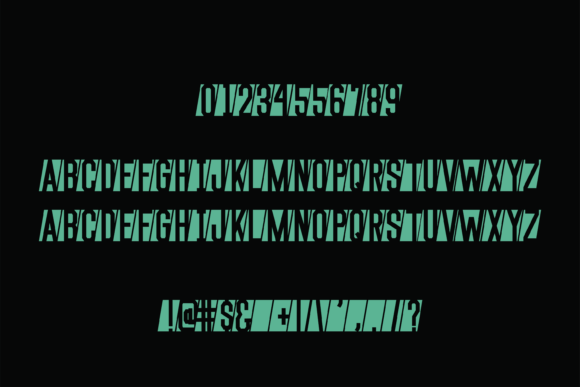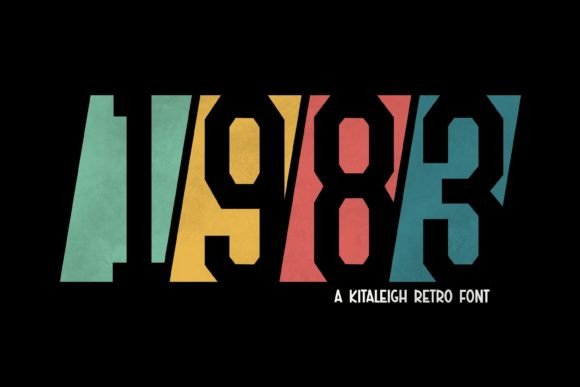
Step into a Time Machine: Uncovering the Magic of the 1983 Retro Font
I’ll never forget the time I was working on a project for a client who wanted a retro-themed poster. I had all the design elements ready, but something was missing – the perfect font. I scoured the internet, tried out countless fonts, but none seemed to capture the essence of the ’80s. That’s when I stumbled upon the 1983 Retro Font. It was love at first sight! 💕
This tilted boxed font brought back the charm of classic nostalgia, and I knew I had found the perfect fit for my project. If you’re a designer, crafter, or creative hobbyist looking to add a splash of retro vibes to your work, you’re in luck! The 1983 Retro Font is here to give your projects that vintage touch of yesteryear.
• ✨ Unique and distinctive design that instantly adds a retro touch to any project
• ✅ Easy to read, even in smaller sizes
• 💥 Perfect for headlines, titles, and emphasis text
• 🎉 Great for creating a cohesive look when paired with other retro-inspired design elements
While the 1983 Retro Font is amazing, there are a few things to keep in mind:
• 🤔 May not be suitable for body text or long paragraphs, as it’s primarily designed for headlines and titles
• ⚠️ Some characters, like the lowercase letters, can be a bit tricky to read if you’re not used to the font
The Designer Inspiration Behind the 1983 Retro Font
The 1983 Retro Font was inspired by the iconic designs of the 1980s. The font’s creator, a talented designer with a passion for retro aesthetics, wanted to capture the essence of the decade’s bold, playful style. The result is a font that’s both nostalgic and timeless – perfect for adding a touch of retro charm to your designs.
A: The 1983 Retro Font is perfect for projects that require a retro touch, such as posters, flyers, social media graphics, and more.